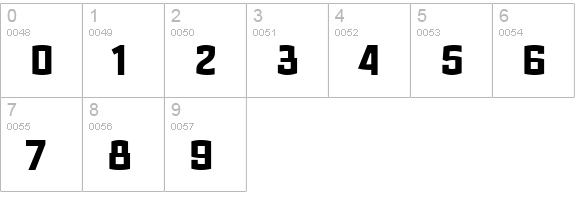
Regra Black is a maximum-weight, dramatic variant in the Regra typeface family \xE2\x80\x94 well suited to maximum-impact headlines, posters, and packaging.
Regra Black is a bold and striking font that exudes power and sophistication. Its strong, clean lines and elegant curves make it perfect for making a statement in any design project. This versatile font is ideal for headlines, posters, branding, and more, adding a touch of modernity and professionalism to any text. The best part? Regra Black is available for free download at FontsMarket.com, allowing designers and creatives to easily access this stunning font for their projects. Whether you're working on a logo, website, or print materials, Regra Black is sure to make a lasting impression with its bold and stylish appearance. Elevate your designs with this eye-catching font today!